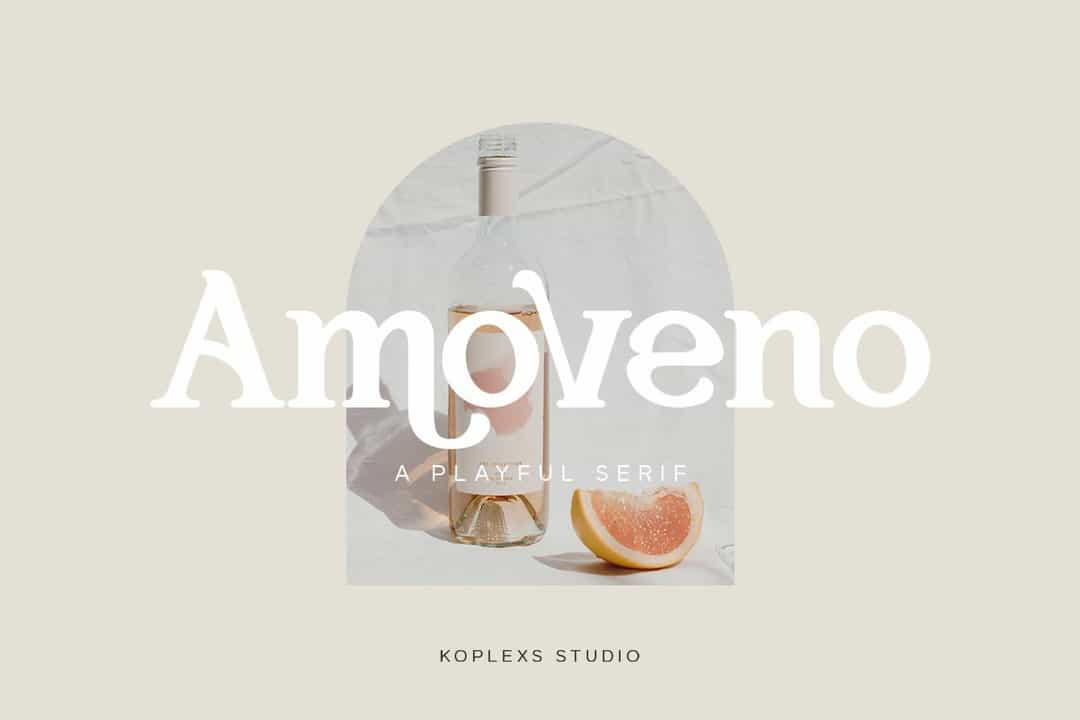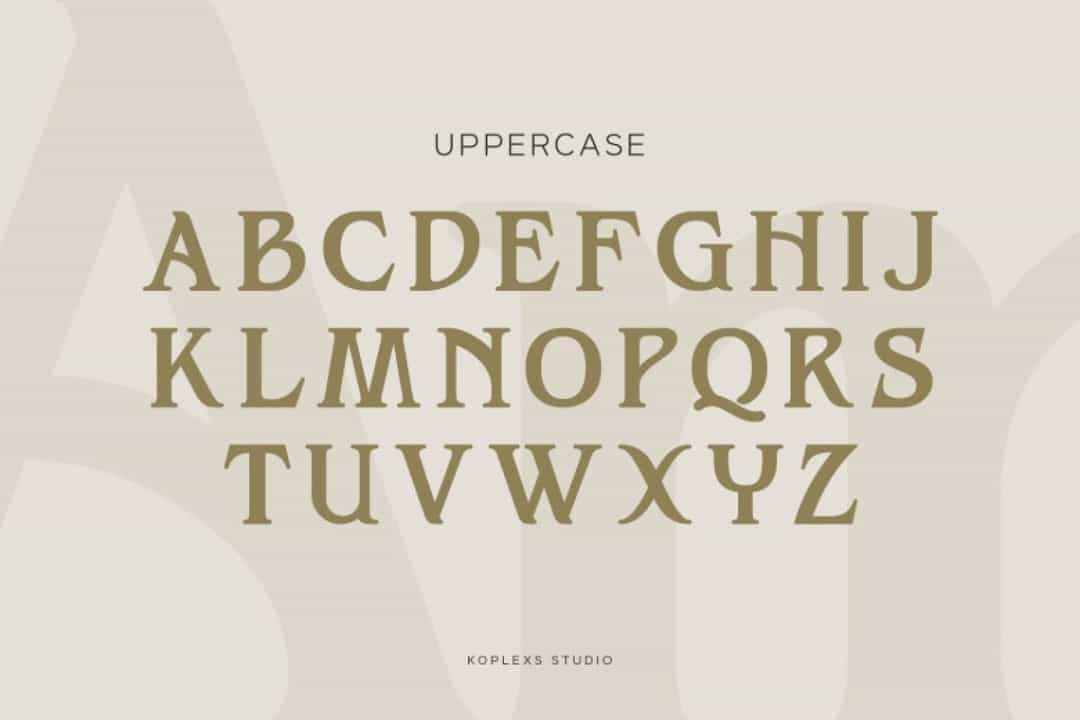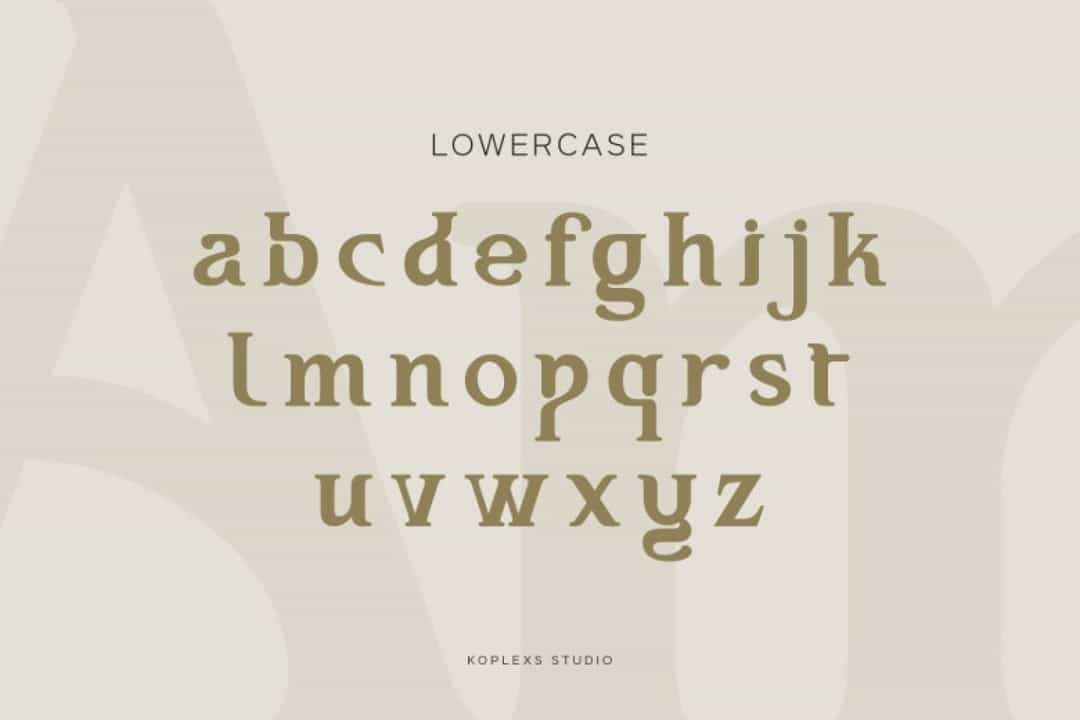
Amoveno Serif Font is an elegant vintage font with beautiful ligatures, abundant alternative glyph ornamentation options, and support for multilingual languages. Perfectly suitable for small as well as large sizes.